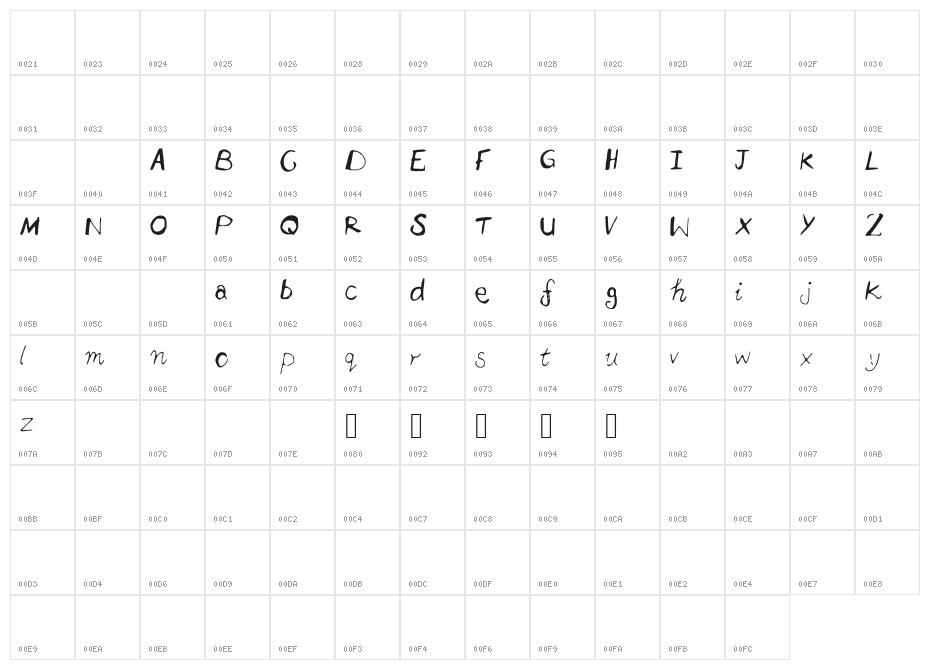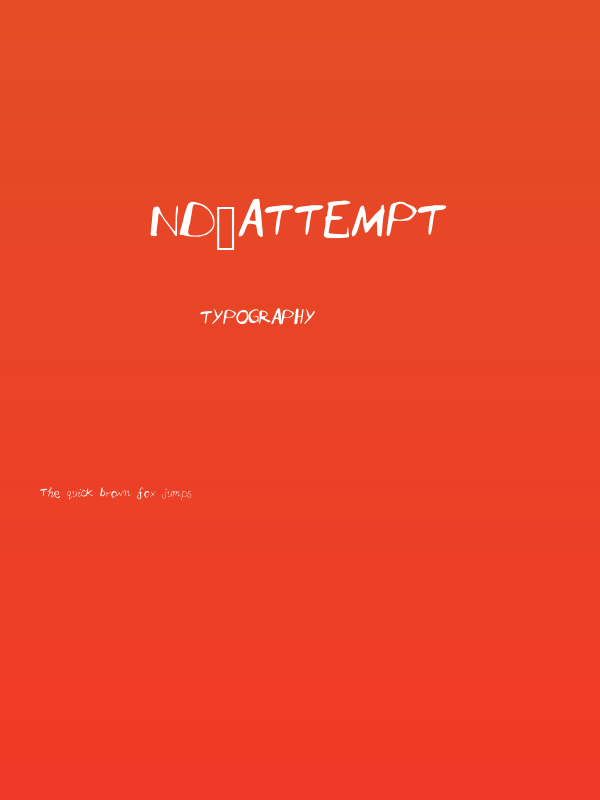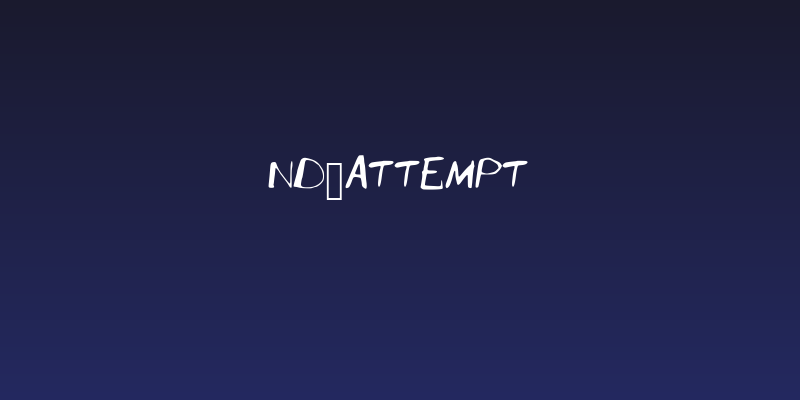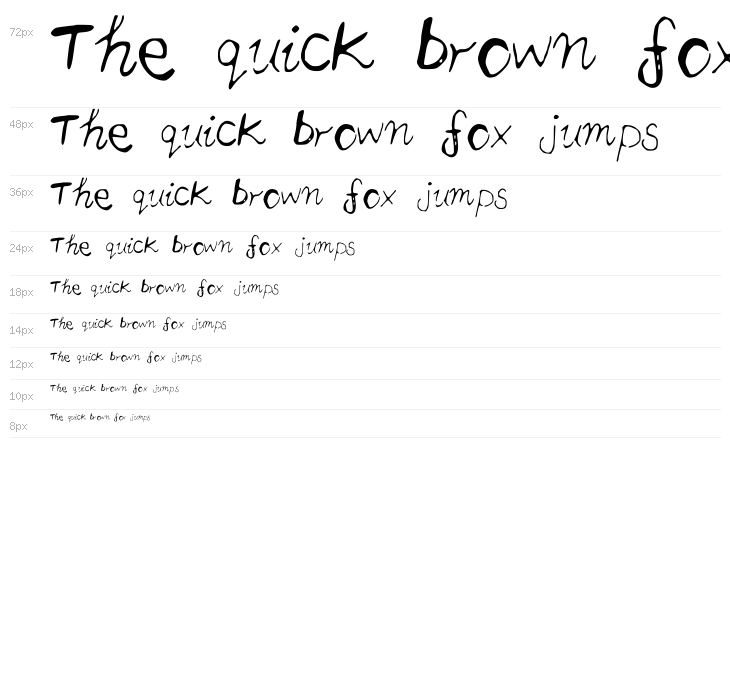
2nd_Attempt Font
2nd_Attempt Description
This font exhibits a playful and artistic style, characterized by its irregular and dynamic letterforms. The uppercase letters are bold and slightly slanted, giving a sense of movement and energy. The lowercase letters continue this theme with a more fluid and whimsical appearance, featuring varying stroke widths and unique character shapes. The font lacks traditional serifs, enhancing its modern and casual feel. The overall design is reminiscent of hand-drawn or brush lettering, making it suitable for creative and informal applications.
| Proposed Projects | Ideal for creative projects such as greeting cards, posters, children's books, and artistic branding. |